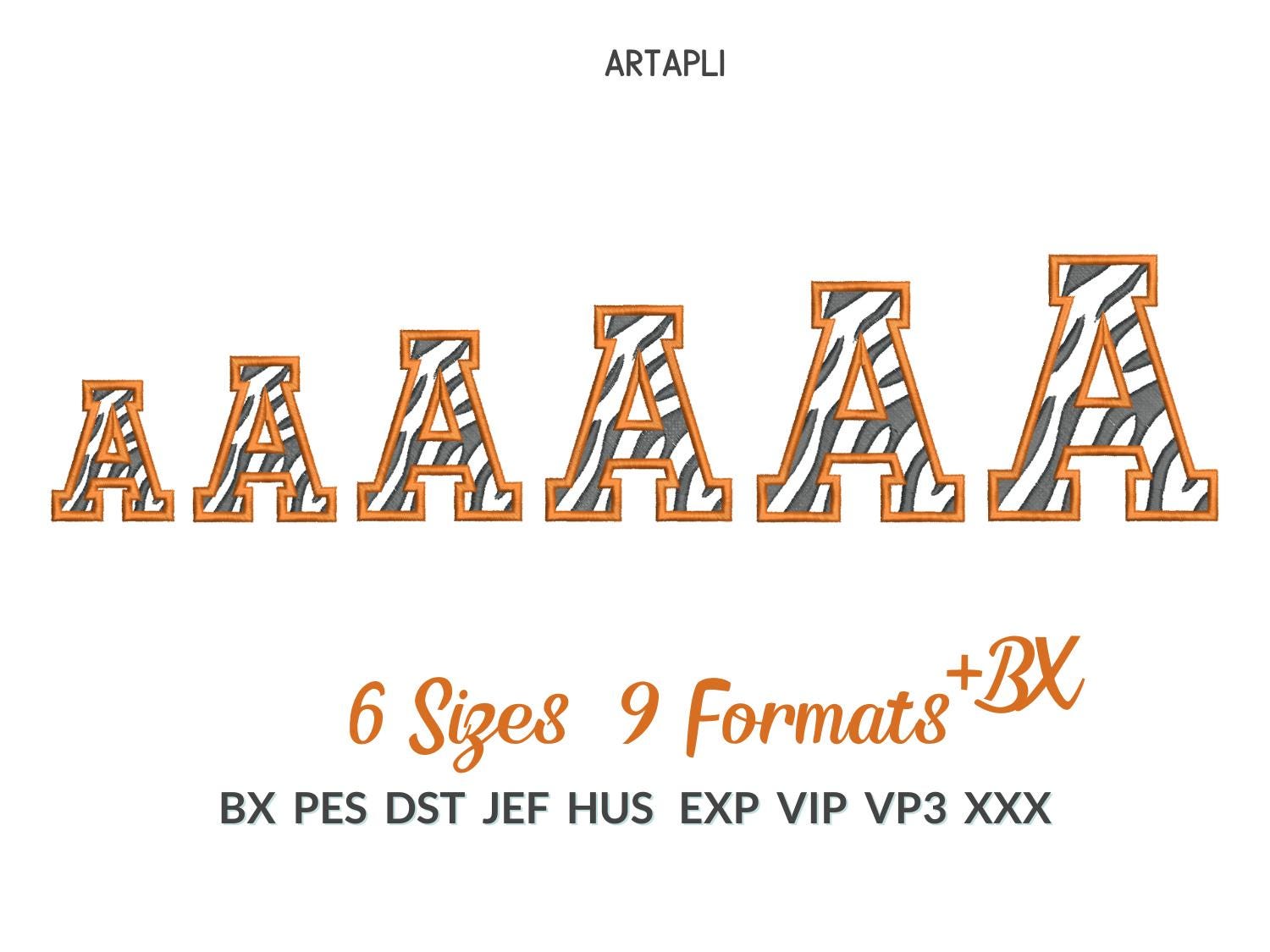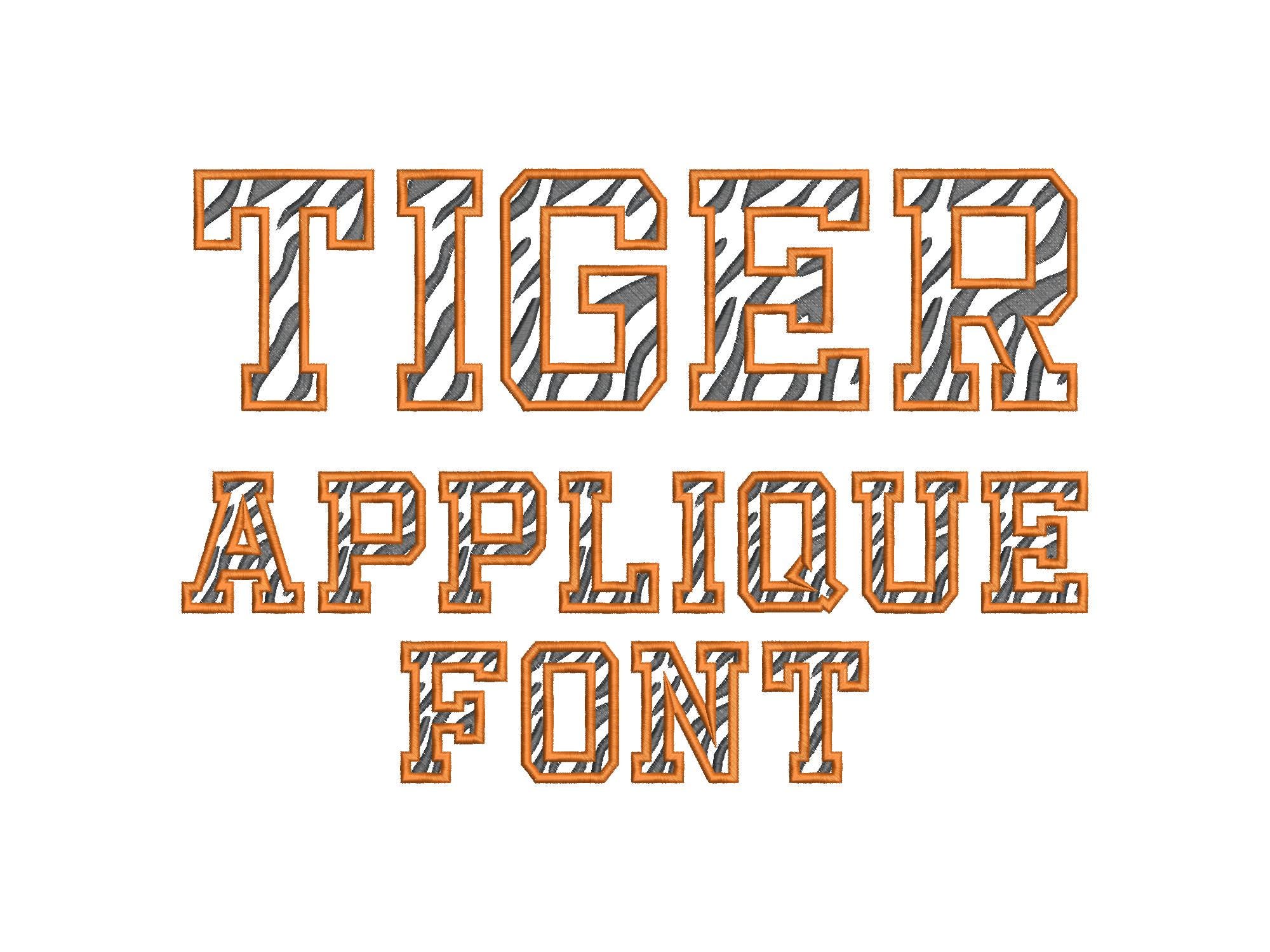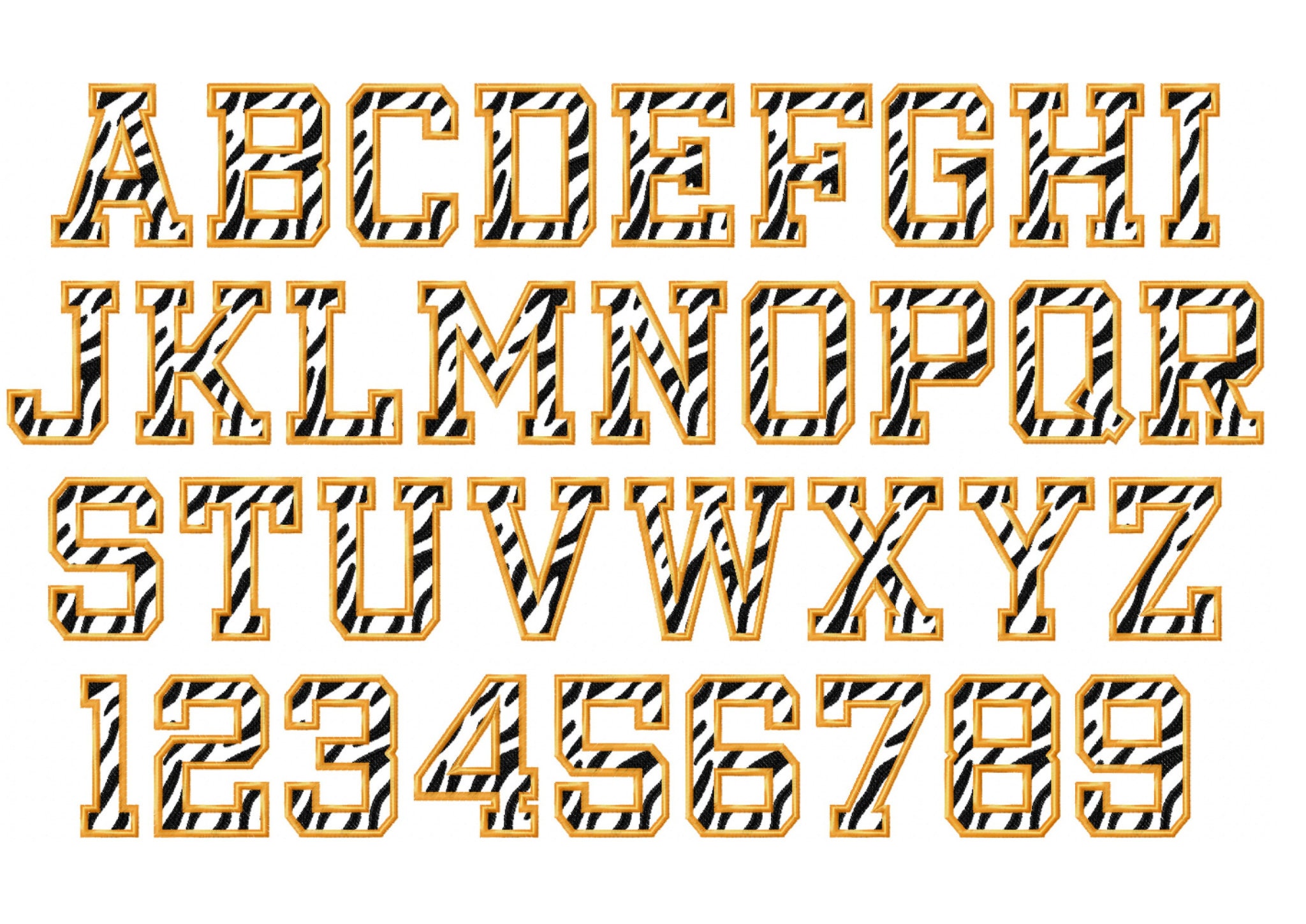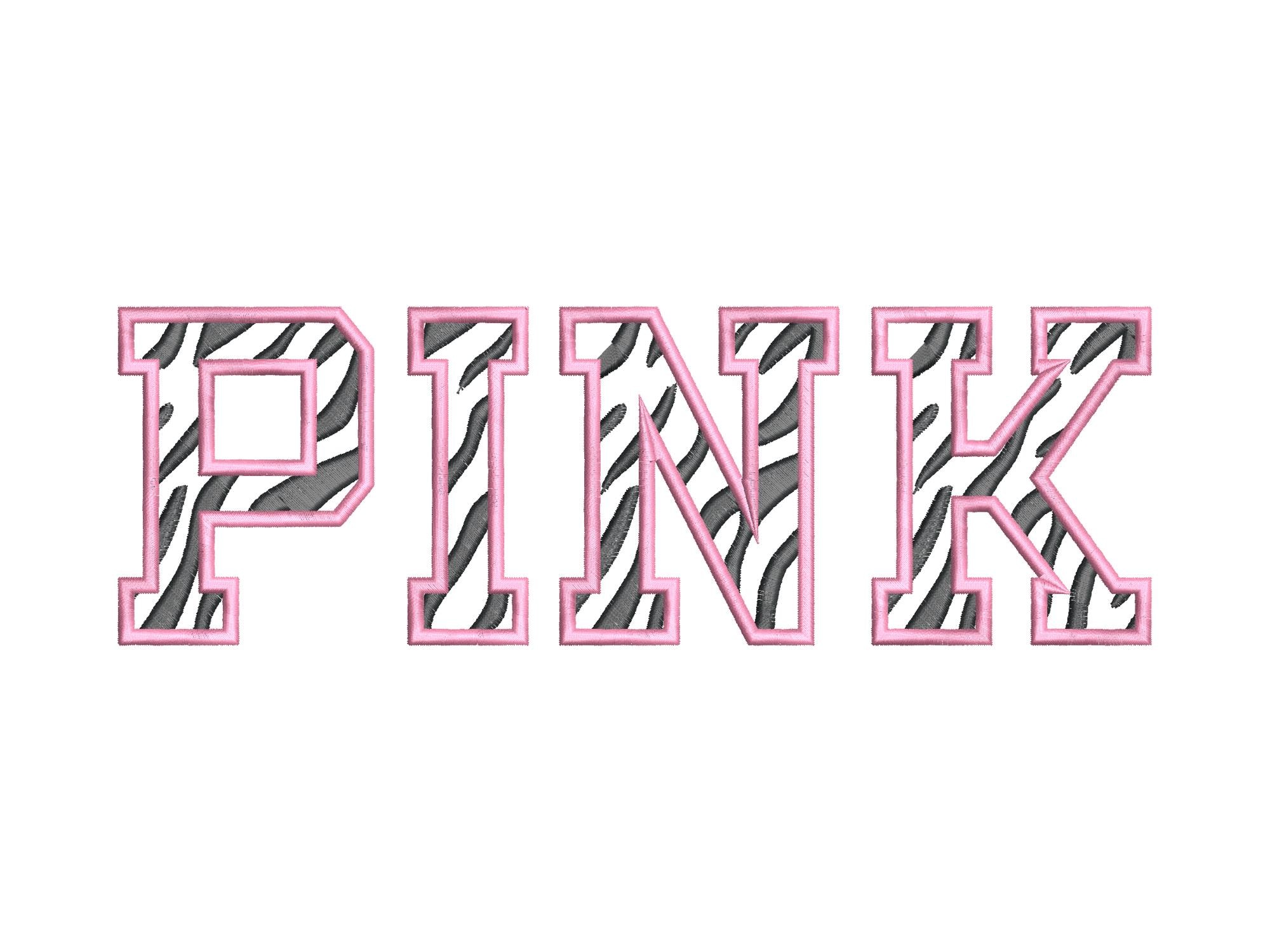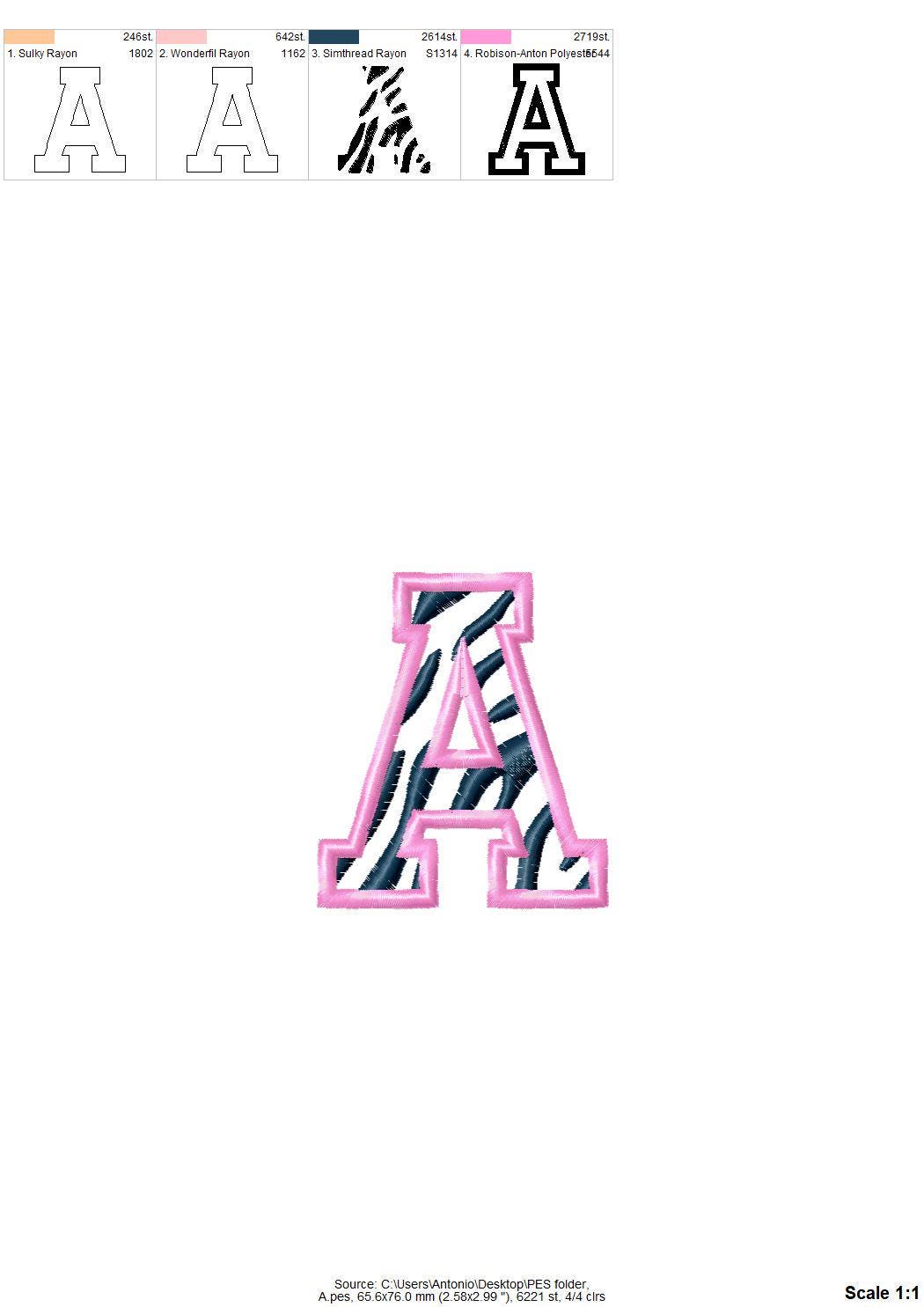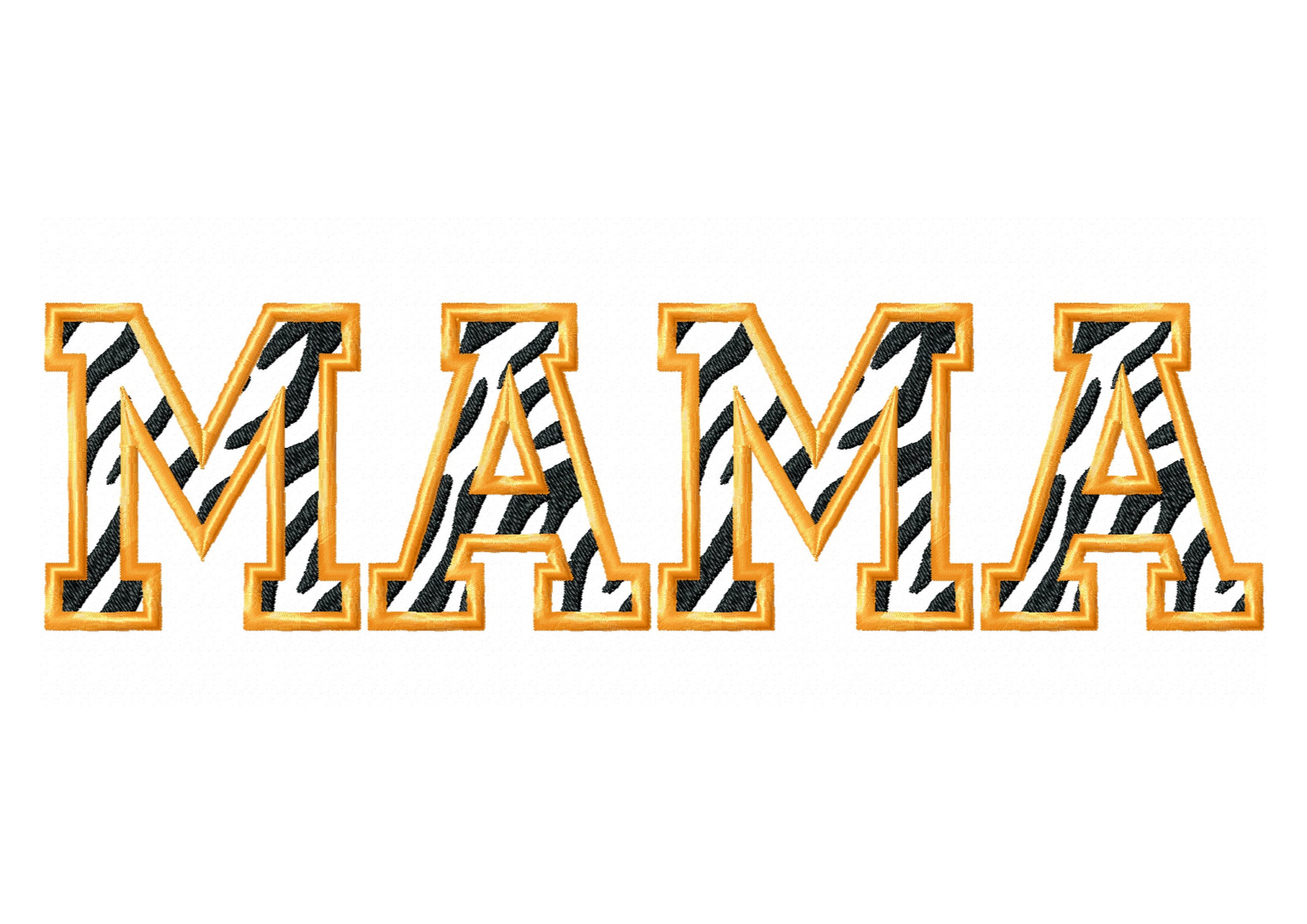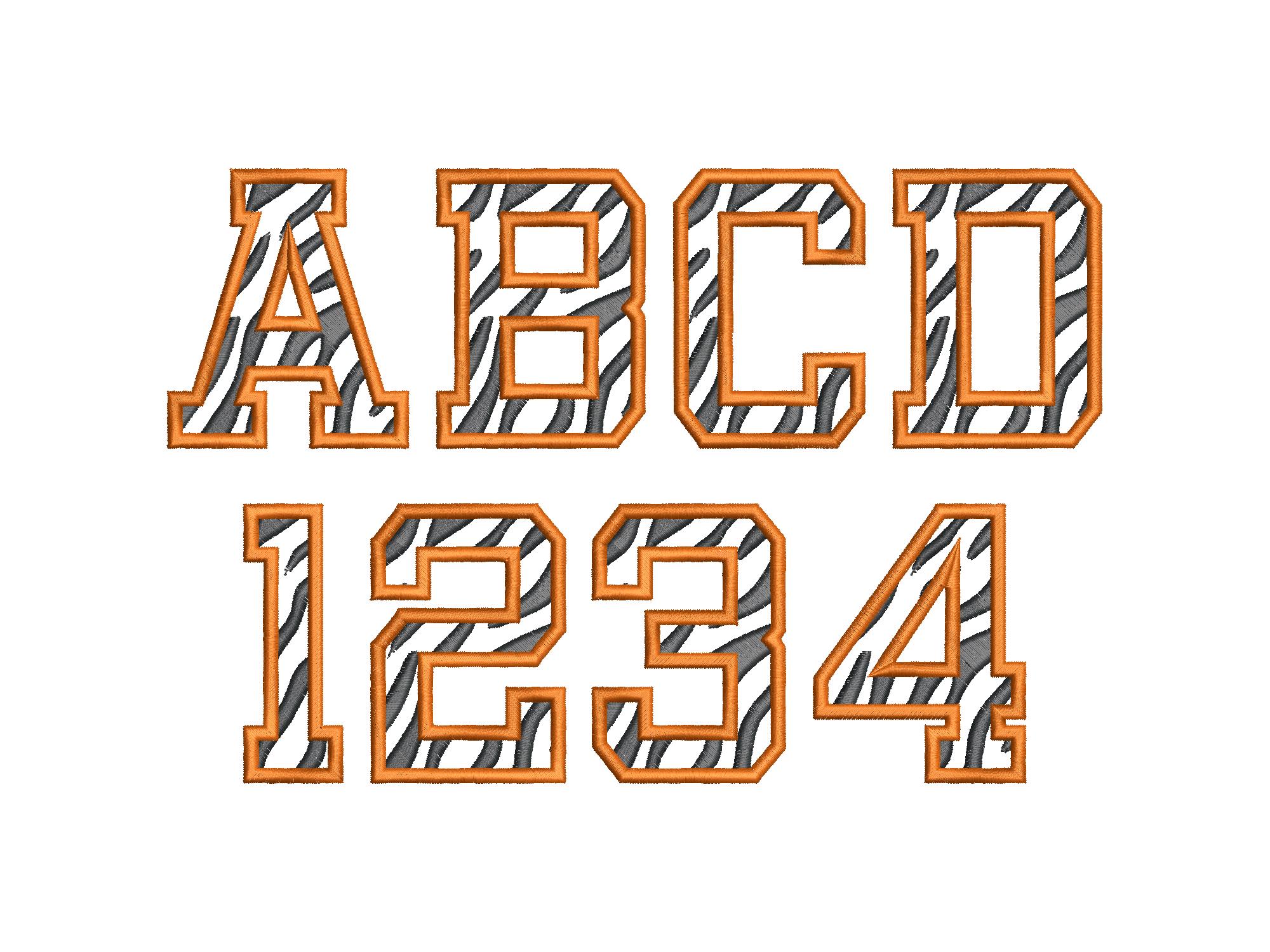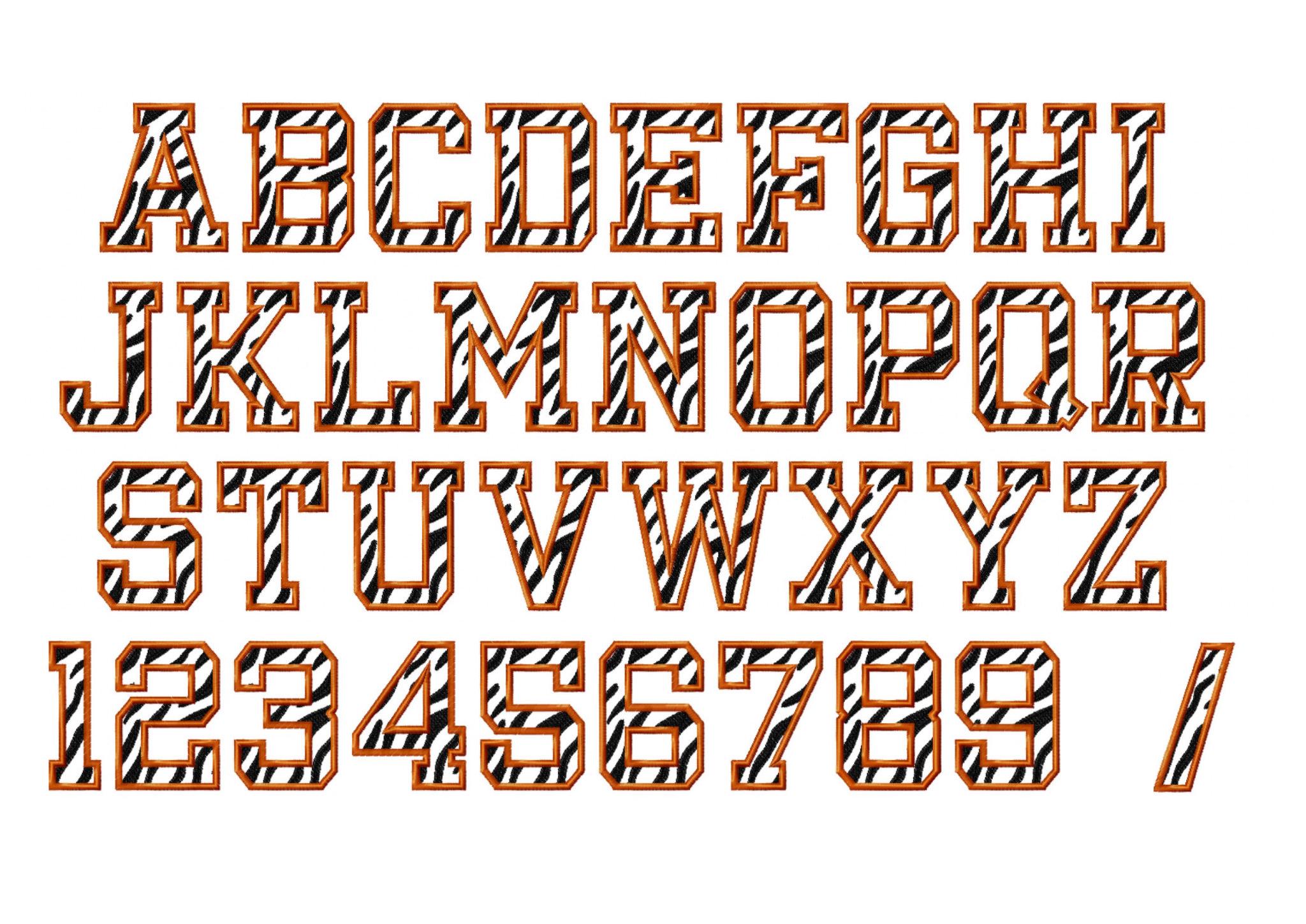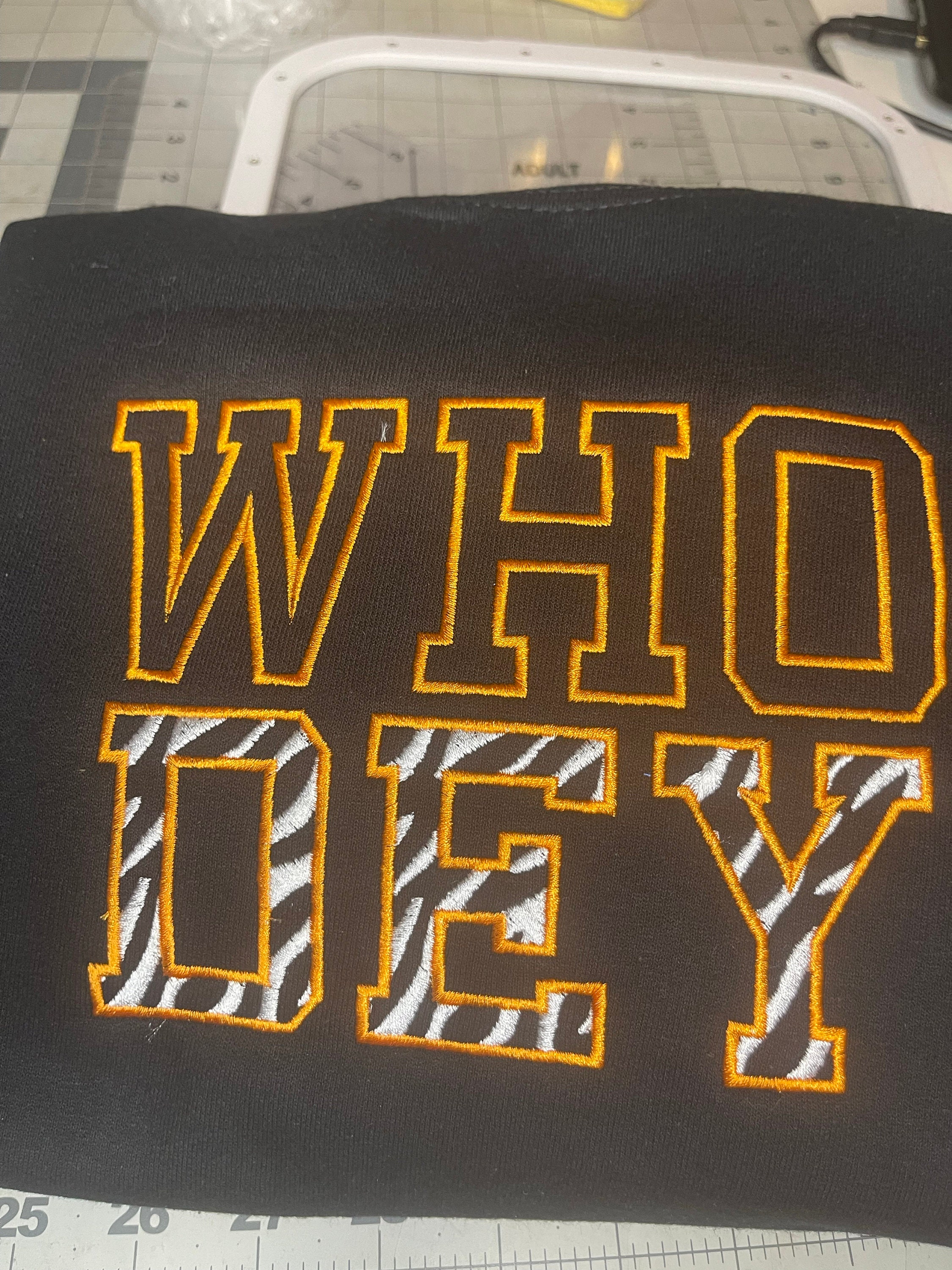
Tiger Print Applique embroidery Font machine embroidery designs Tiger Stripes Varsity Sport alphabet assorted sizes 2.2 to 4.2 inch and BX
This is an applique design with 4 colors: position and applique tack-down stitch, stripes, and an outline satin stitch.
The tiger stripes are part of the design.
Entire alphabet: uppercase A-Z, numbers 0-9, and slash /